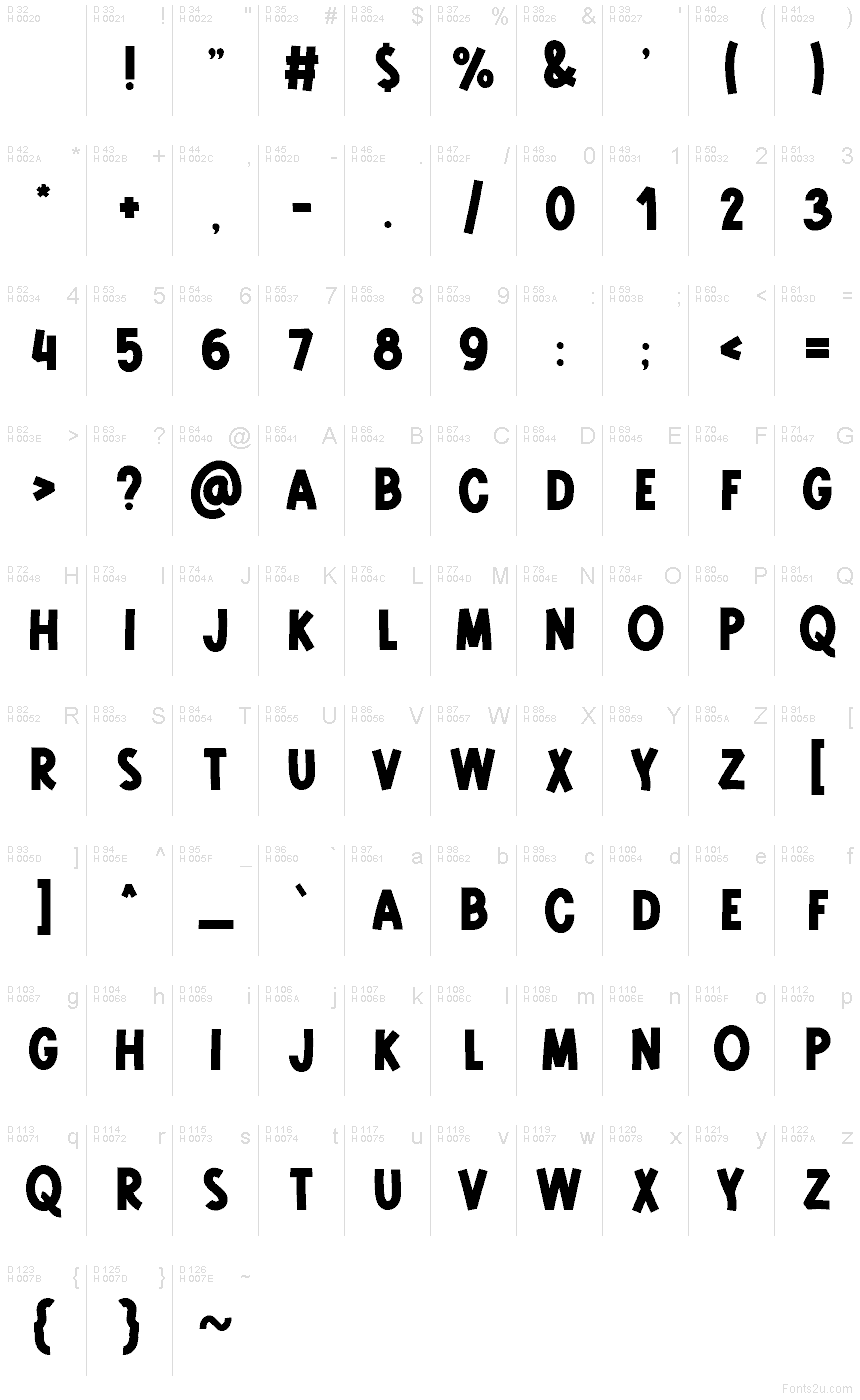
Misrow
Misrow font by Koplexs Studio is a free comic display font. It stands out with chunky, high-contrast forms that feel hand-cut—angled edges, lively slants, and a bouncy rhythm that lands with a satisfying thud. The letters pack in tightly without crushing readability, giving titles a punchy, poster-ready voice that feels playful but confident.
Using Misrow, headlines snap to attention on snack packaging, kids’ book covers, game titles, event flyers, stickers, and YouTube thumbnails. This free font thrives when set big; add a touch of tracking for extra air if space is tight. For supporting text, pair it with a clean rounded sans to keep the energy while maintaining clarity.